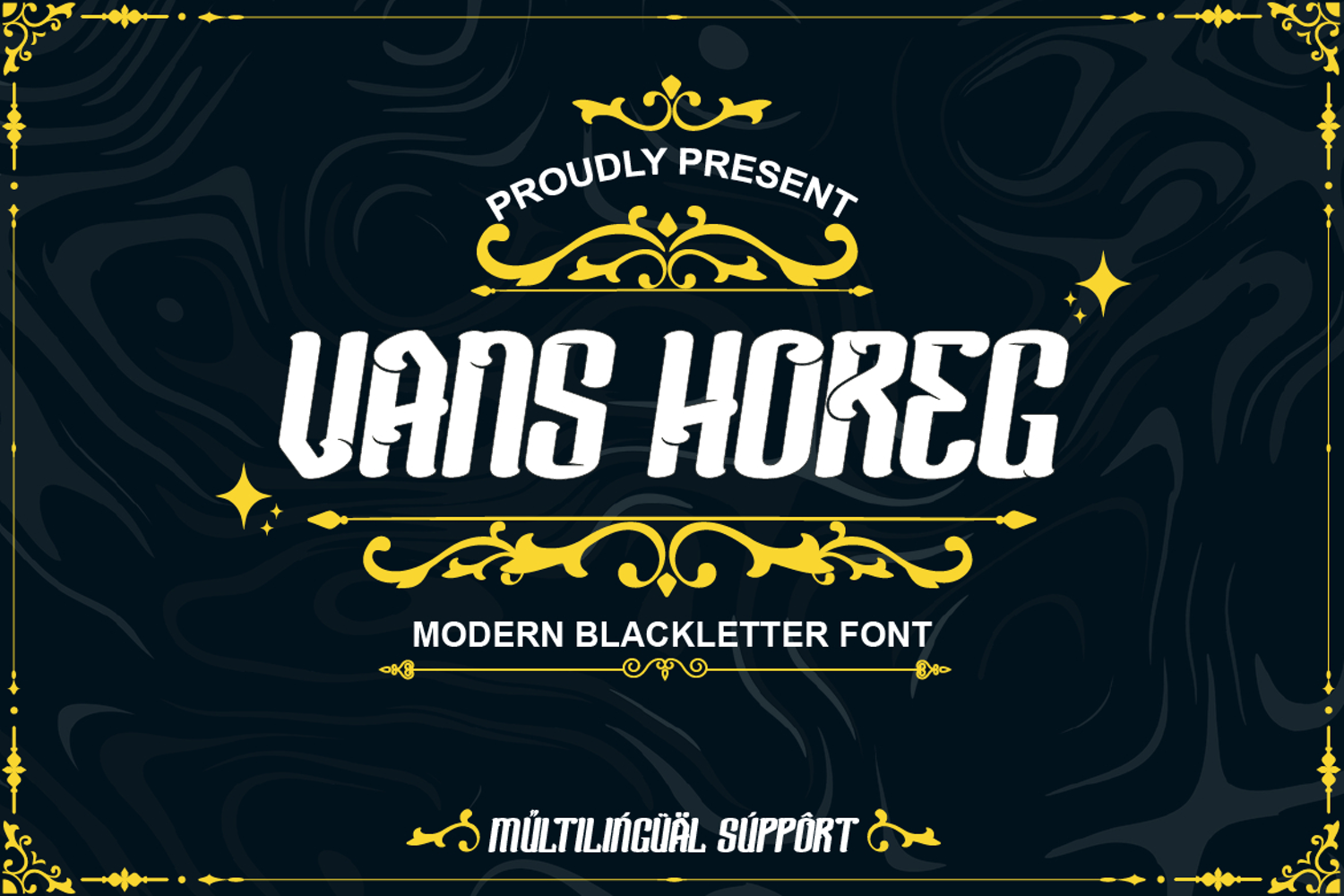
VANS HOREG
Meet Vans Horeg, a modern blackletter font that blends classic elegance with a contemporary touch! With its bold letter design and stunning batik ornamentation, this font brings a luxurious and elegant feel to all your creative projects. Equipped with alternate and ligature features and multilingual support, Vans Horeg is ready to captivate a global audience. Ideal for posters, logos, invitations, or branding designs that emphasize a strong character and timeless style.